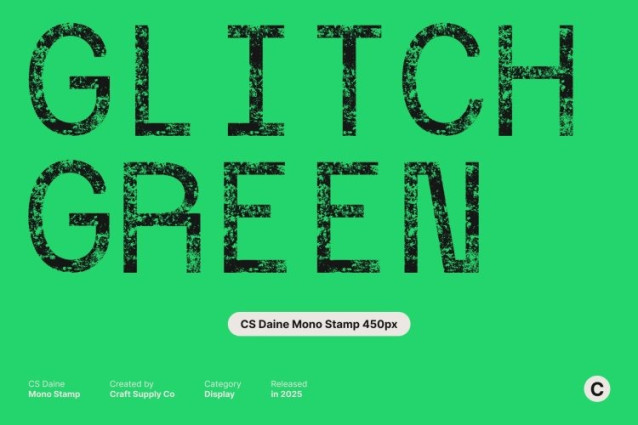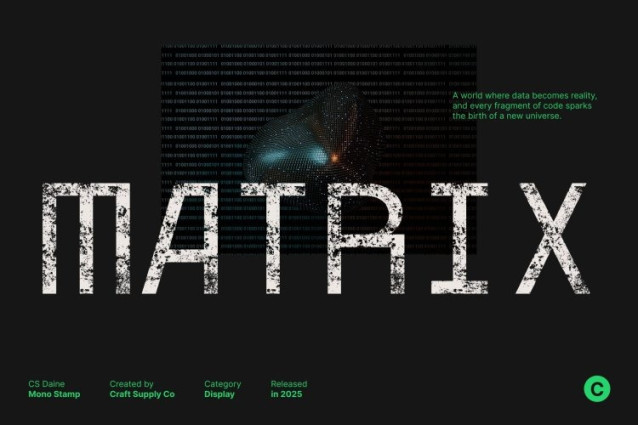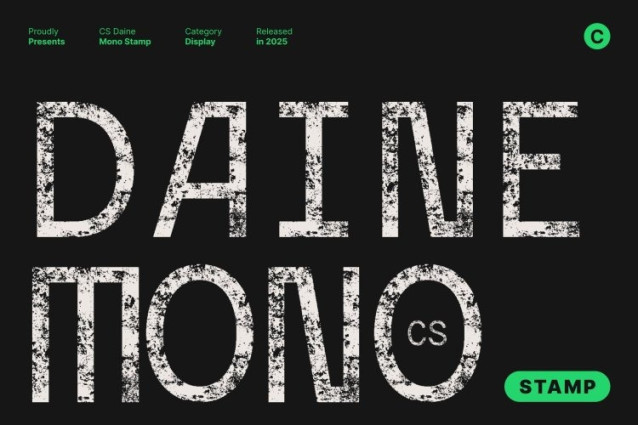
CS Daine Mono Stamp Font
CS Daine Mono Stamp Font This is built on the principles of clarity and order. Its monospaced design ensures that each character occupies equal horizontal space, creating a clean, consistent rhythm that enhances readability. This structured layout makes it ideal for designs that require precision while still offering visual interest.
Monospace Meets Creative Expression
While rooted in functionality, brings creativity to the forefront. Its balanced sans serif shapes feel modern and minimal, yet the artistic nuances in each form add personality. This blend of practicality and flair makes the font suitable for both technical and expressive design contexts.
Vintage Texture Through Stamp Detailing
The subtle stamp effect adds a vintage, tactile quality to the font’s clean structure. This textured finish introduces warmth and character, softening the rigid nature of monospaced typography and giving your designs an authentic, handcrafted touch.
Versatile for Branding, Posters, and Print Layouts
Whether used for headlines, branding elements, editorial spreads, or minimalist posters, adapts effortlessly. Its combination of clarity, structure, and artistic texture makes it a strong choice for designers seeking a monospaced font that communicates both precision and personality.